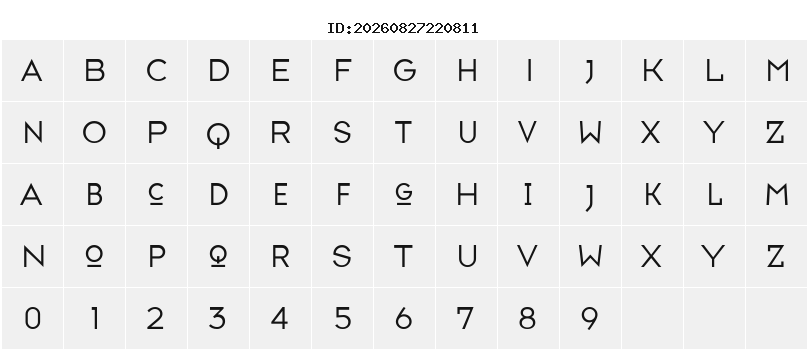
• Font Name: TypefaceSeven
About TypefaceSeven.ttf
TypefaceSeven.ttf is a modern, elegant sans-serif font designed for ultimate readability and visual harmony. Perfect for branding, headlines, web design, and print materials.